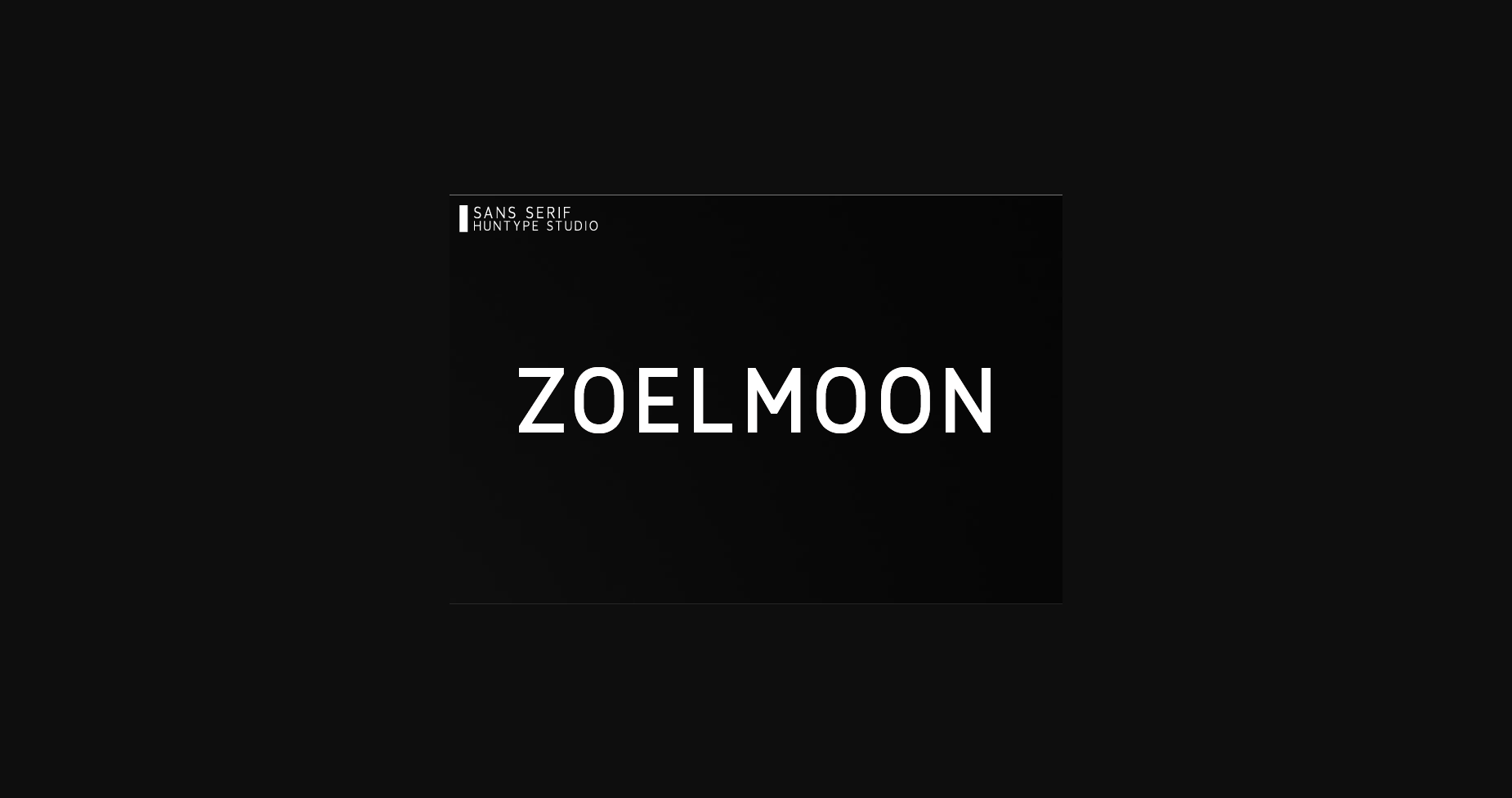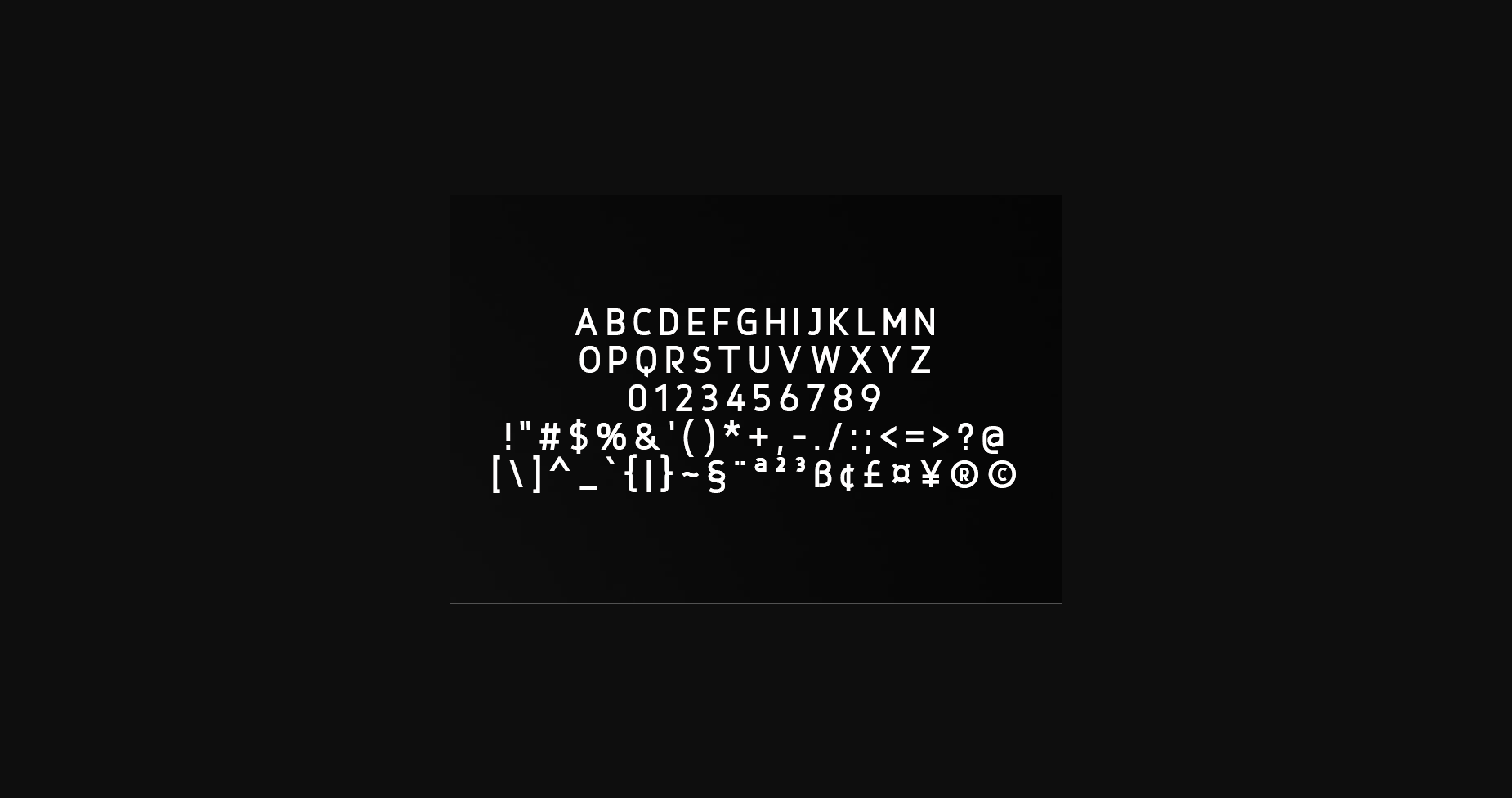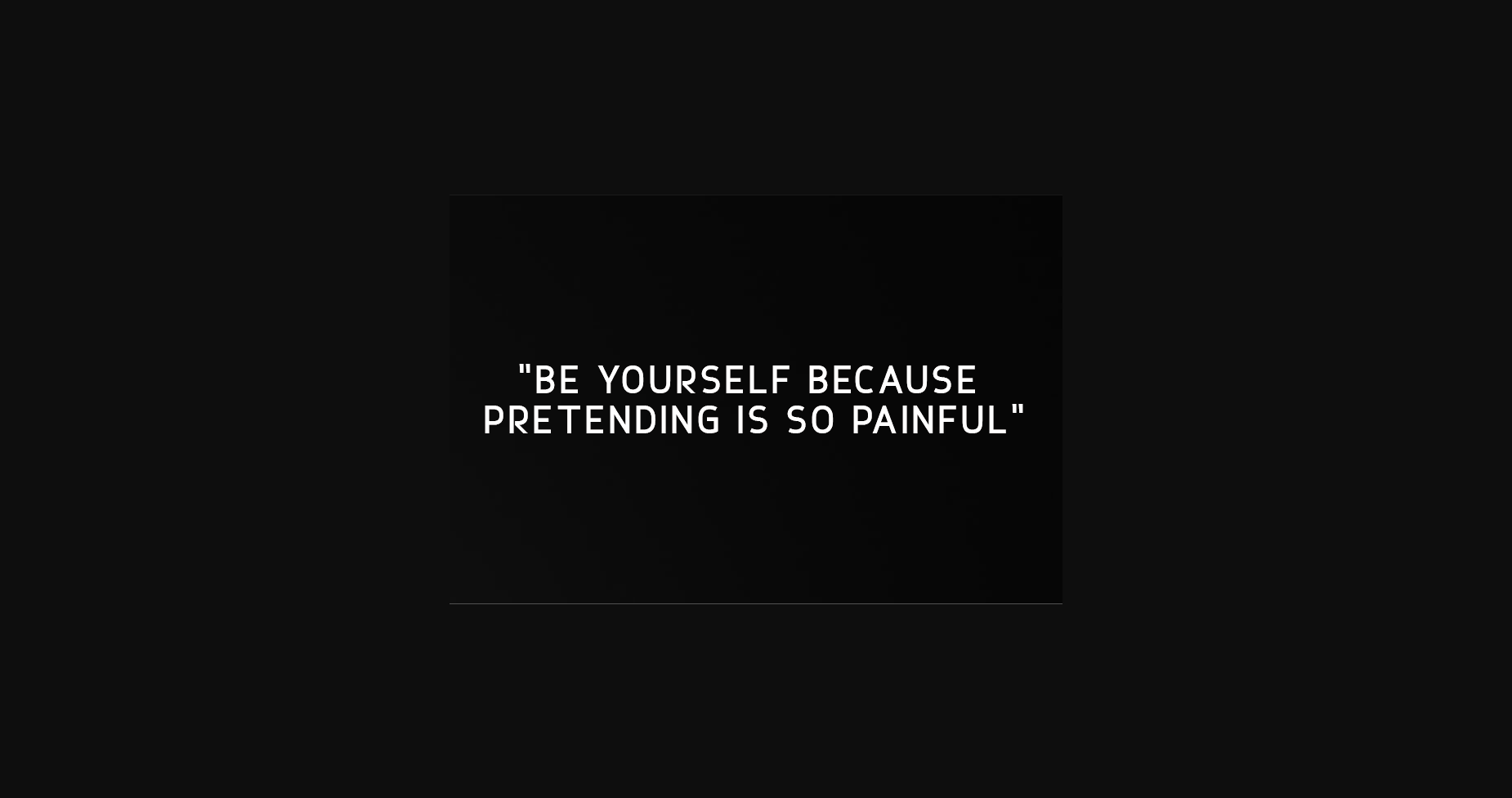
Zoelmoon Font
About Zoelmoon Font
Zoelmoon is a clean and neat sans serif font. It is suitable for logotype, headline font, in corporate identity, brand identity, apparel industry, poster, music, movie, game, magazine, book, comic, cartoon, YouTube, Instagram, website, or any of your creative design projects.